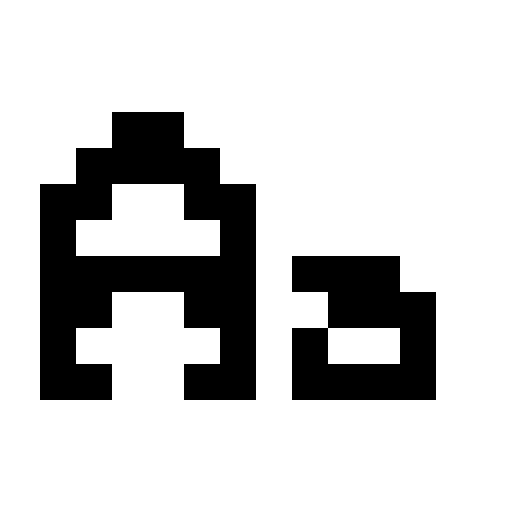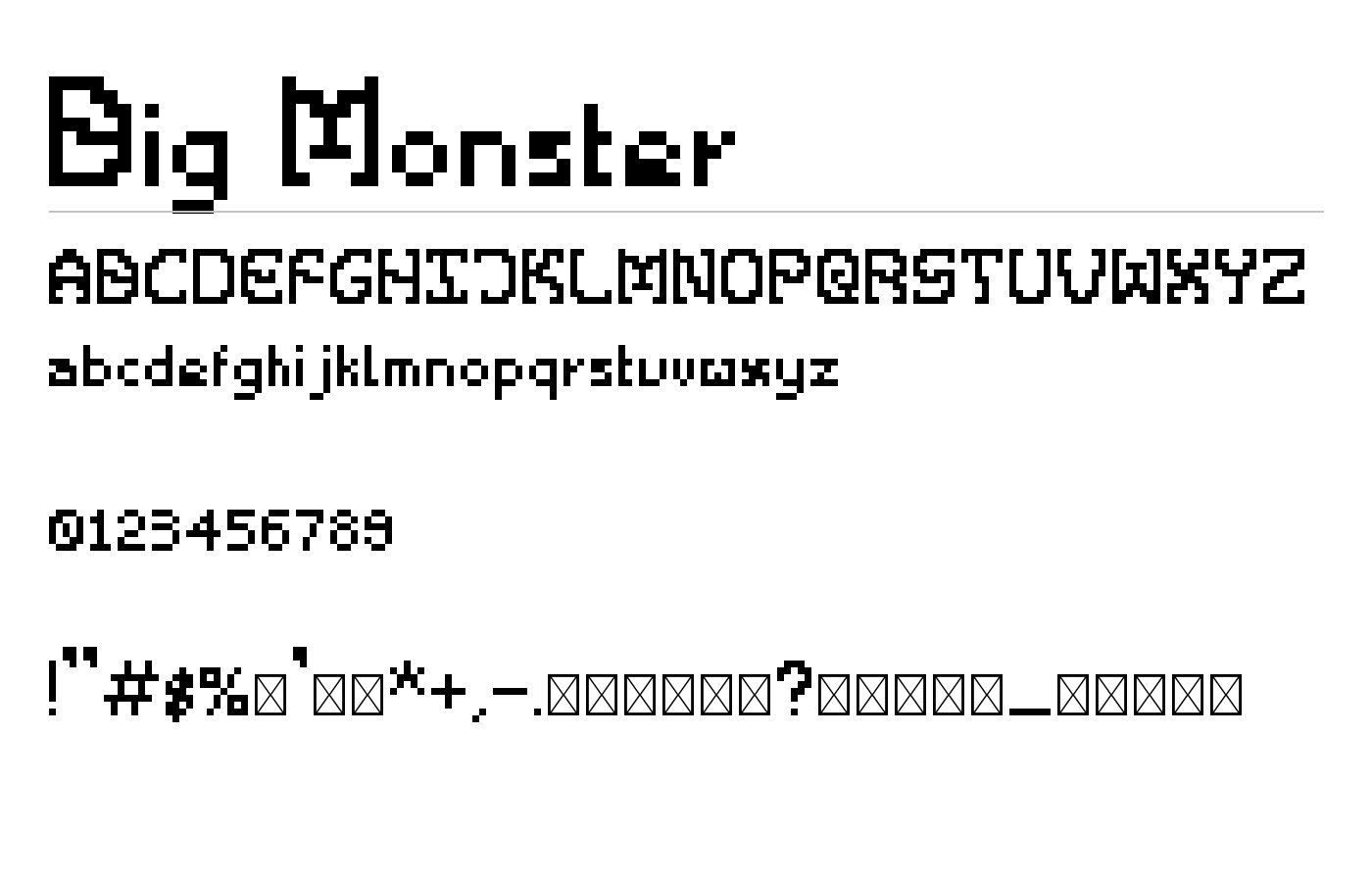
Big Monster is a bold, pixelated sans-serif font that exudes a retro, digital vibe reminiscent of classic video games. Its blocky, geometric letterforms with consistent stroke weight and sharp edges make it perfect for creating playful, tech-inspired designs that stand out in logos, posters, and digital media. This font works best when used in large sizes for headlines or branding projects aiming for a fun, nostalgic feel.
Big Monster Font
About Big Monster Font
| Font family | Big Monster Font |
| Designer | Bitty |